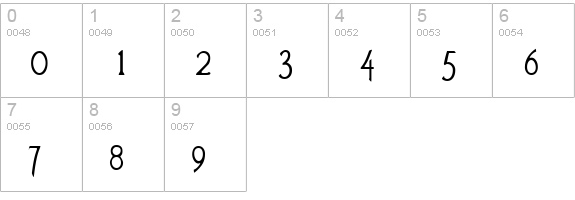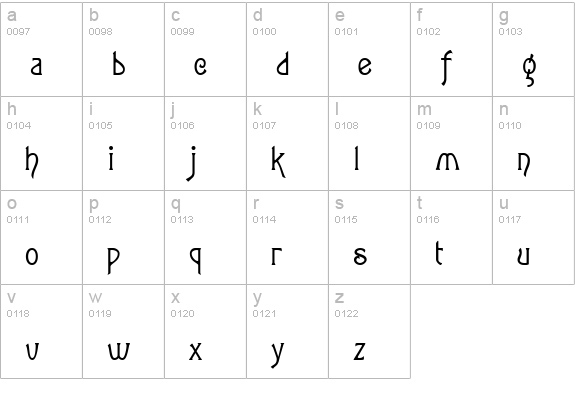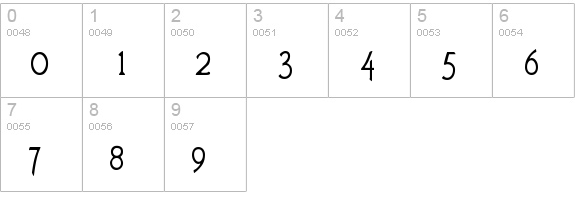
Agatha Regular is the standard, neutral variant in the Agatha typeface family \xE2\x80\x94 well suited to general body text, paragraphs, and standard typographic work.
Agatha Regular is a timeless and elegant font that exudes sophistication and style. Its gracefully curved letterforms and balanced proportions make it perfect for a wide range of design projects, from invitations to branding to editorial layouts. The classic yet modern aesthetic of Agatha Regular adds a touch of refinement to any design. One of the best features of Agatha Regular is that it is available for free download at FontsMarket.com. This means that you can easily access this beautiful font and use it in your projects without any cost. Whether you are a professional designer looking for a versatile typeface or a hobbyist creating personal projects, Agatha Regular is a fantastic choice that won't break the bank. With its clean lines and subtle details, Agatha Regular is sure to make a lasting impression on your audience. Download it today and add a touch of sophistication to your designs!